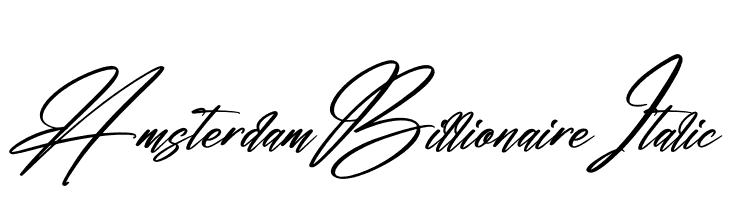
A sophisticated, flowing script font with a handwritten style.
An elegant and decorative script font with bold, intricate loops and high contrast strokes.
A sophisticated, cursive script font with high contrast and elegant flow.
A fluid and elegant script font with a handwritten appearance.
A cursive, handwritten-style font with elegant, flowing characters.
A luxurious and elegant script font with flowing, cursive letterforms.
A sophisticated, cursive script font with elegant, flowing lines.